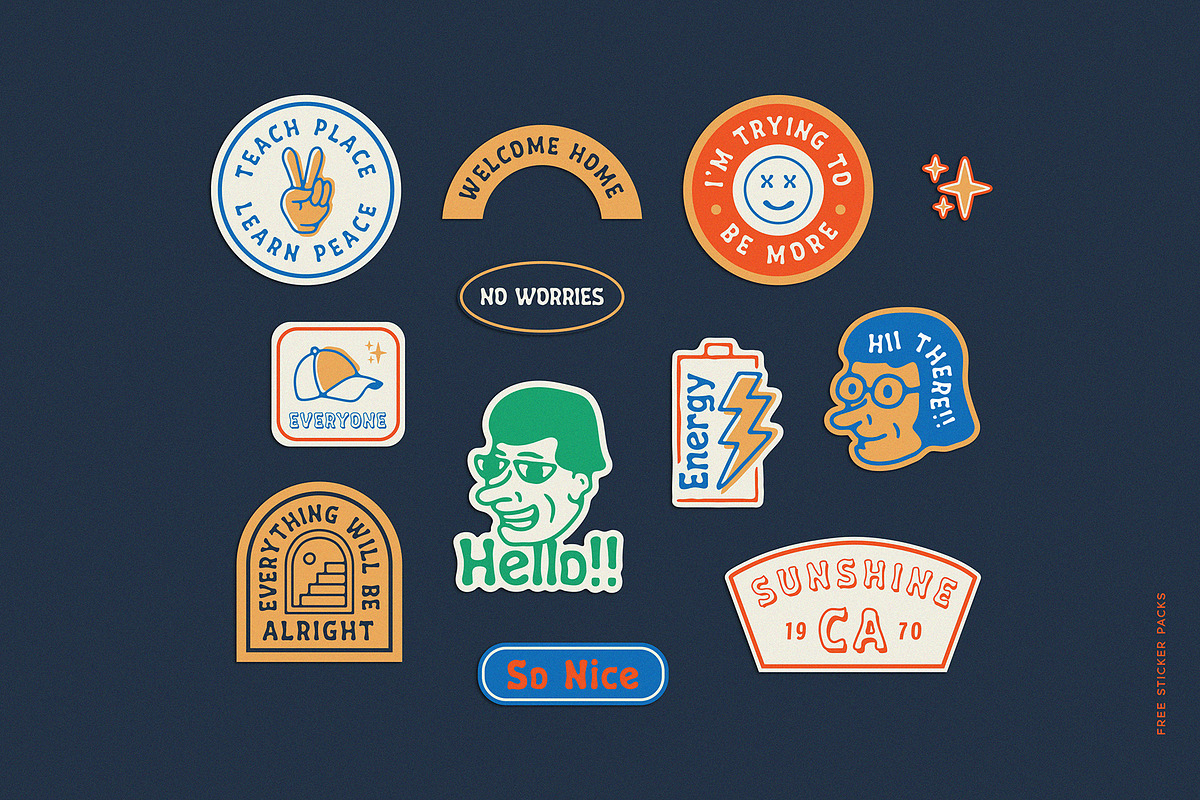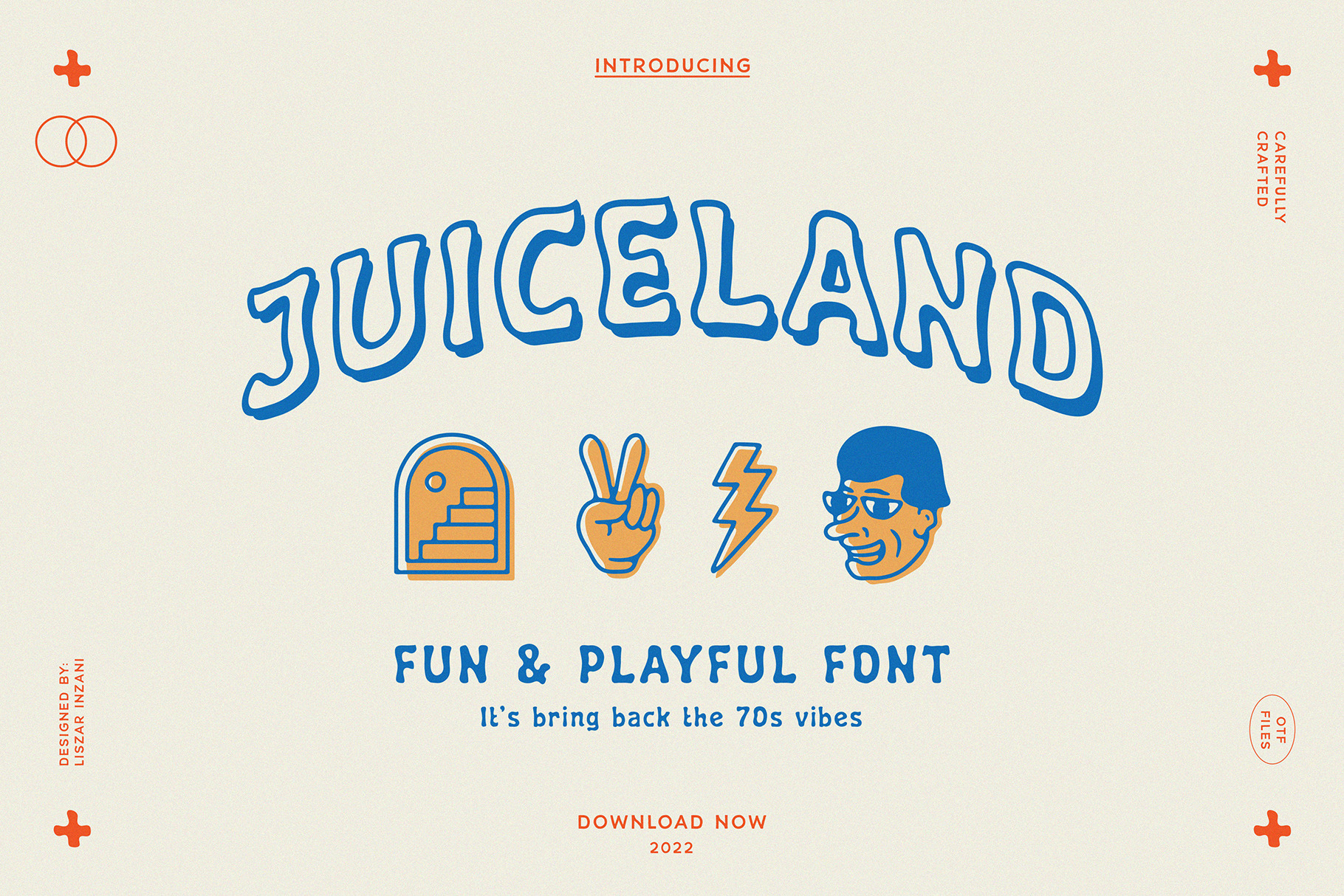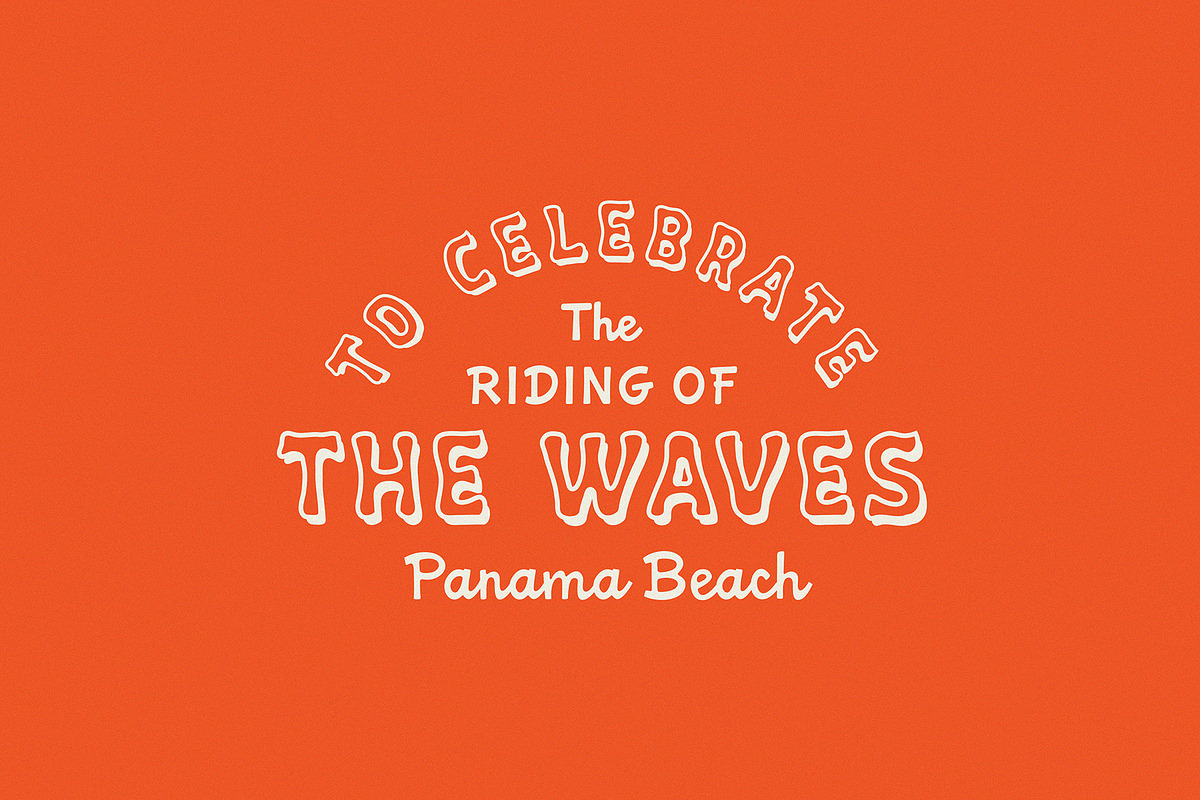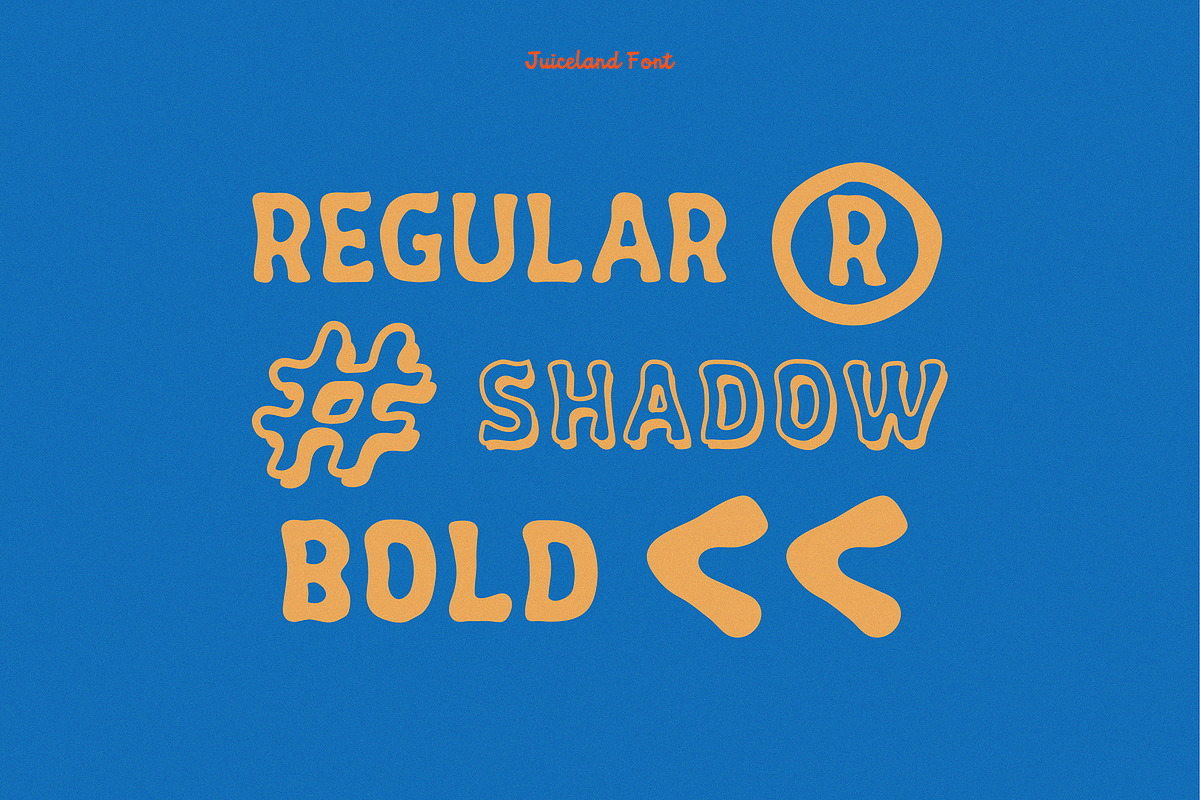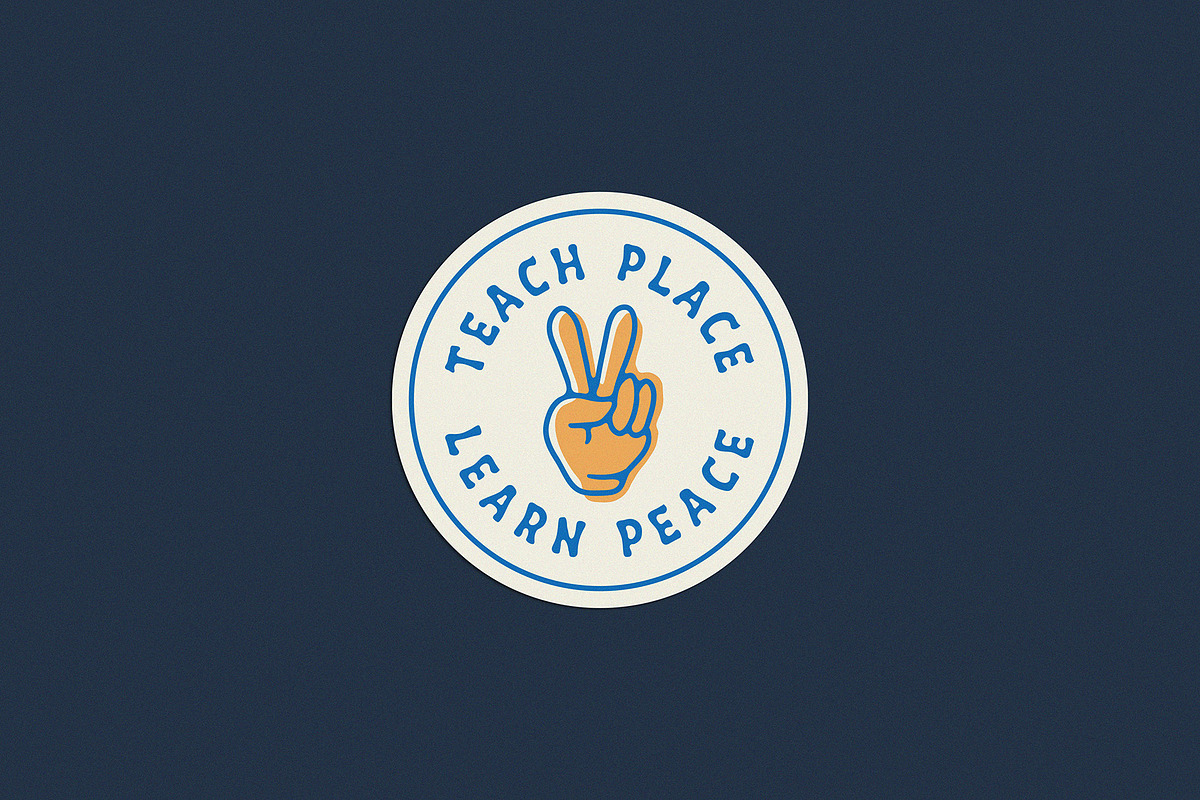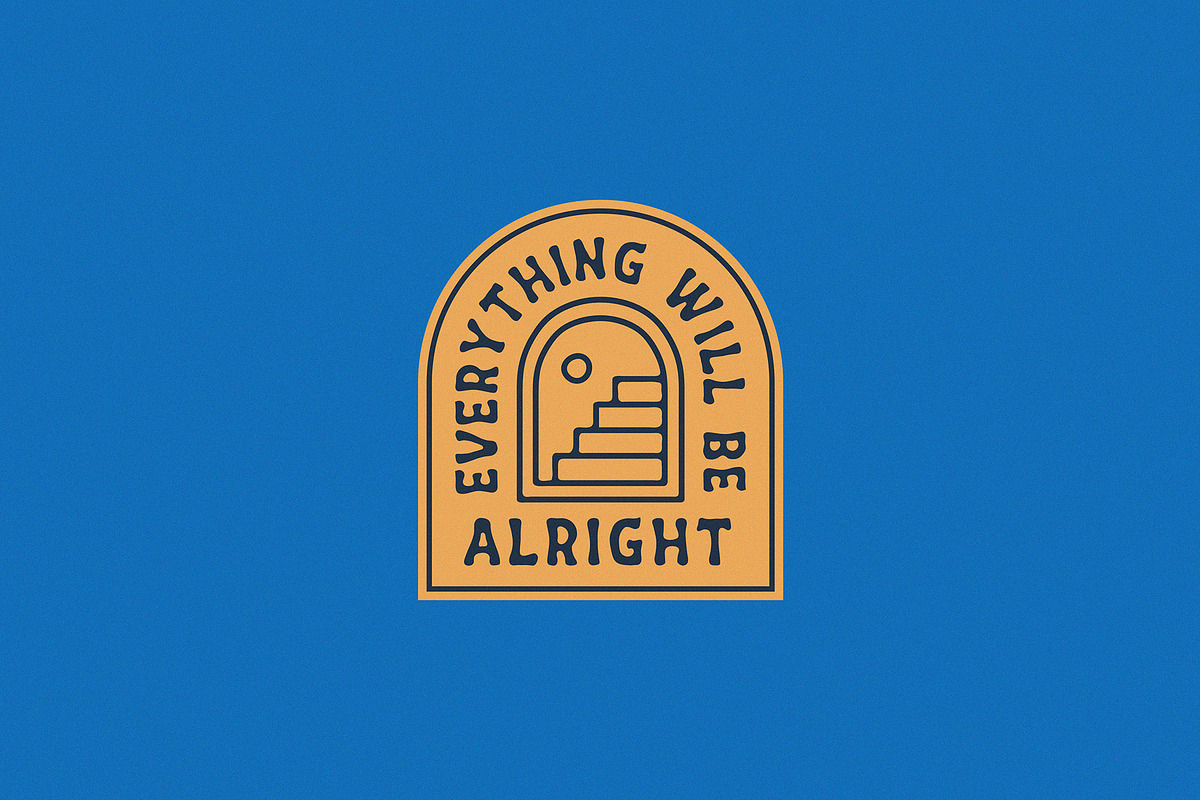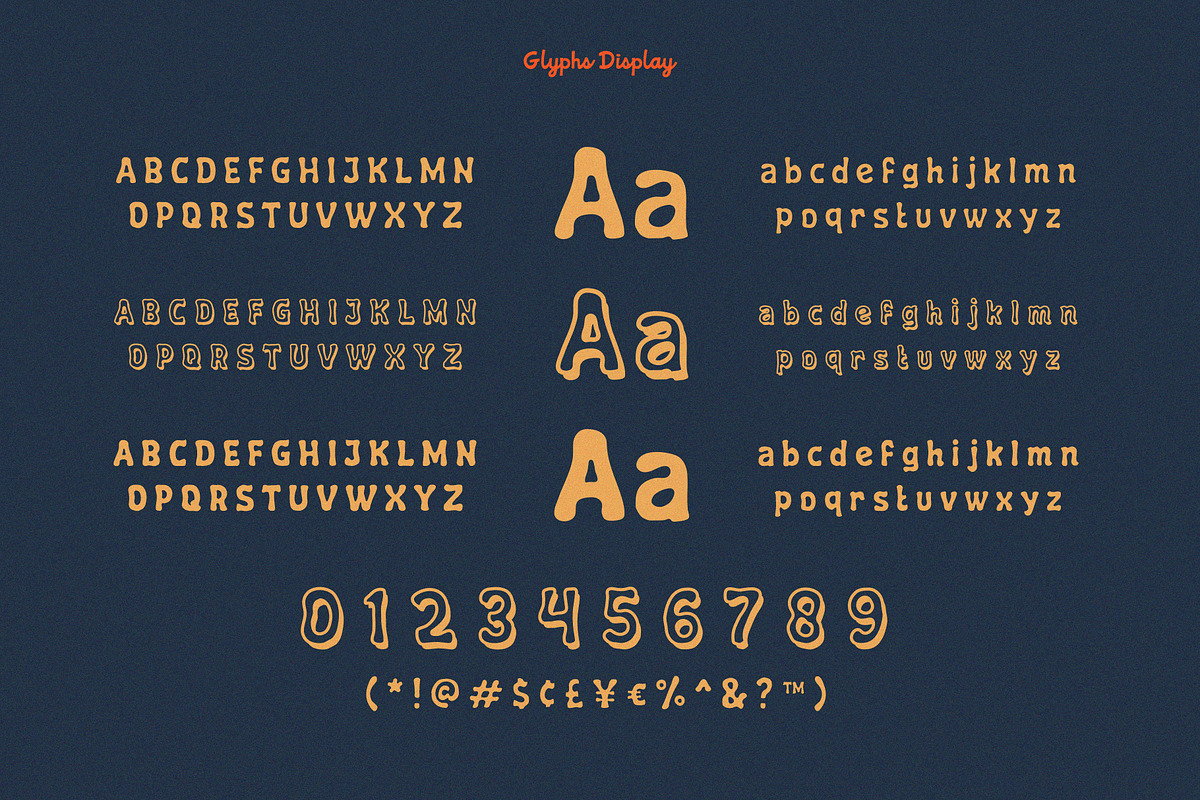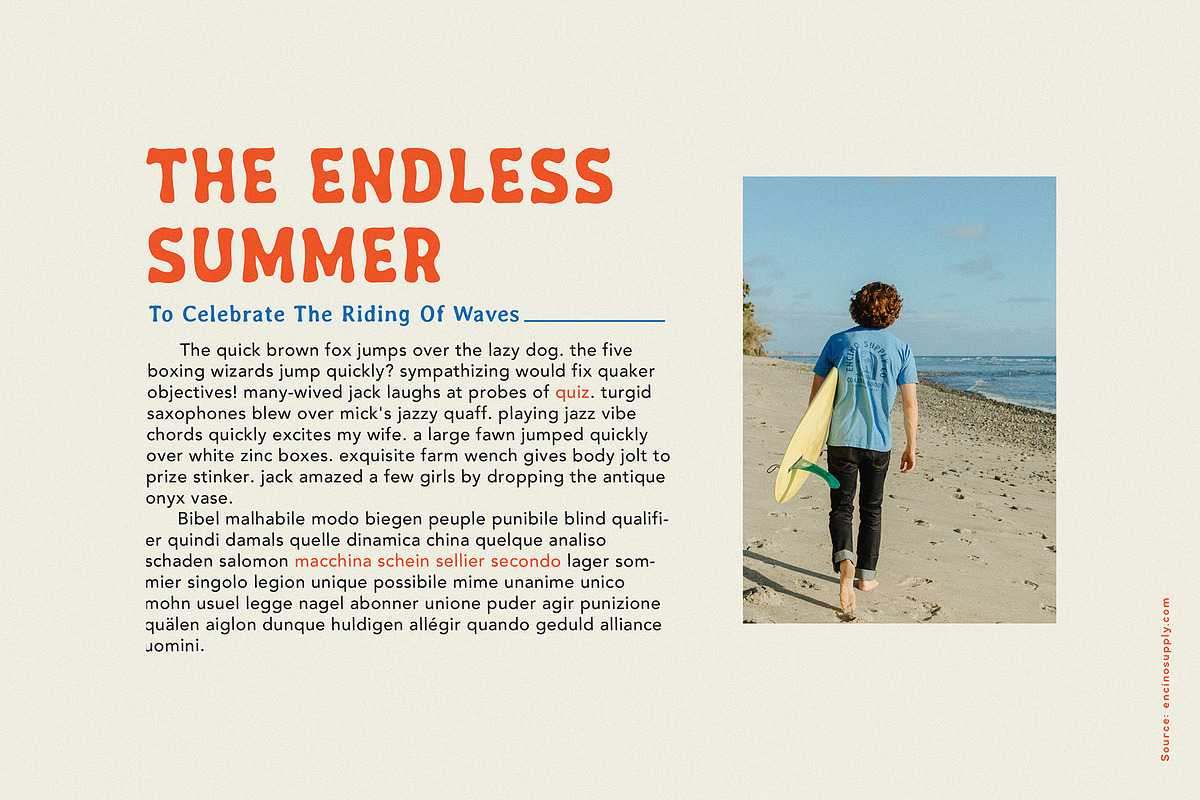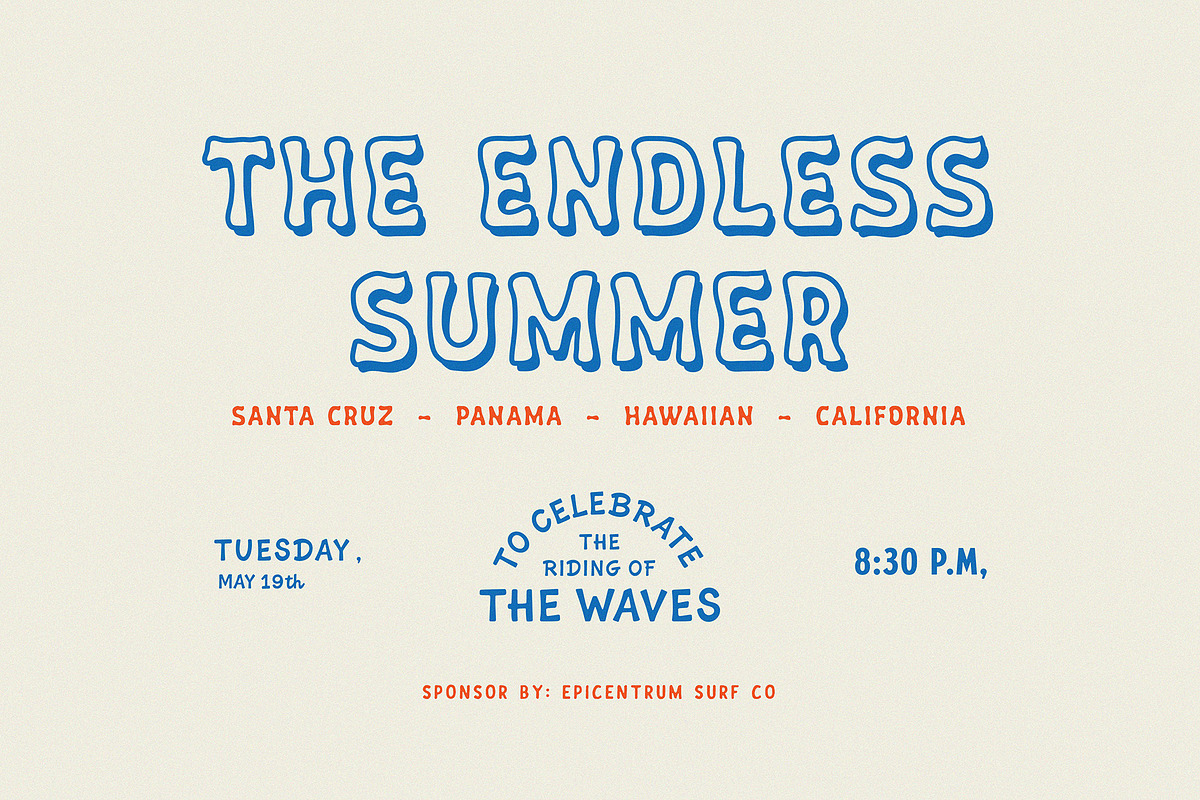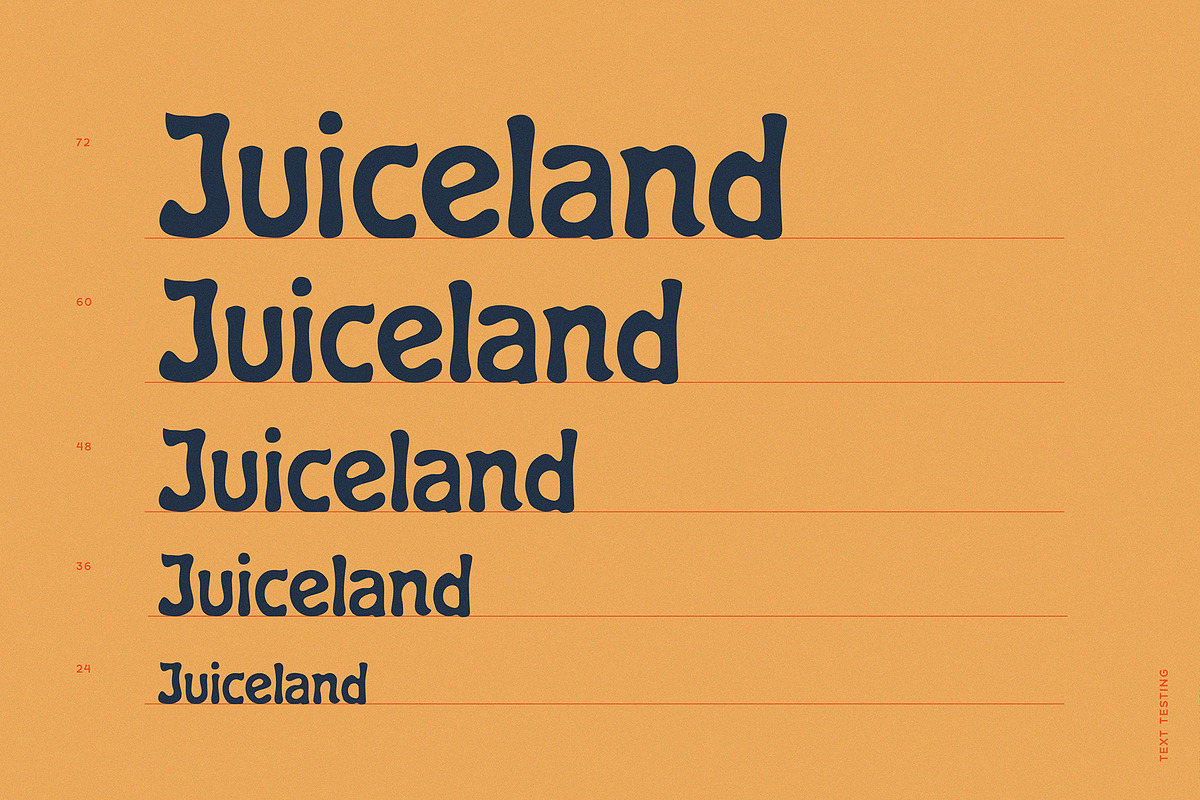
Juiceland | Playful Font
Introducing, Juiceland -A Playful Font. It’s inspired 1970s type, Juiceland is friendly and playful font come with 3 Styles: Regular, Shadow and Bold.